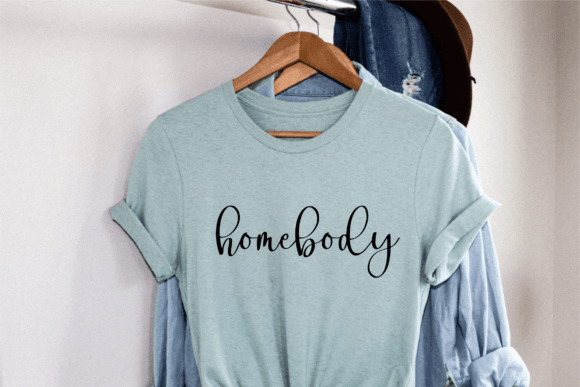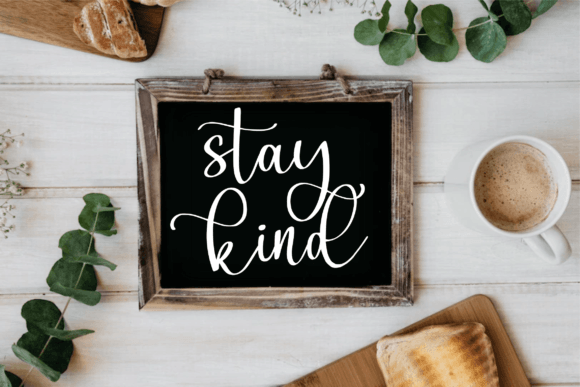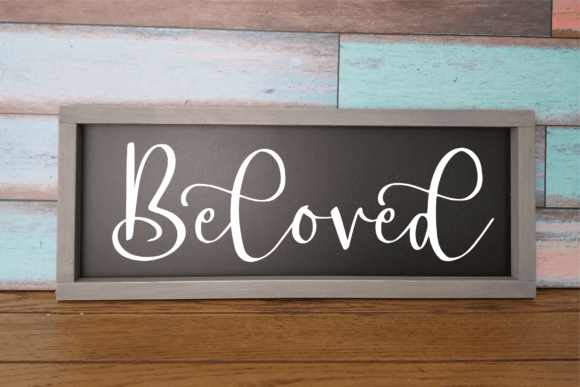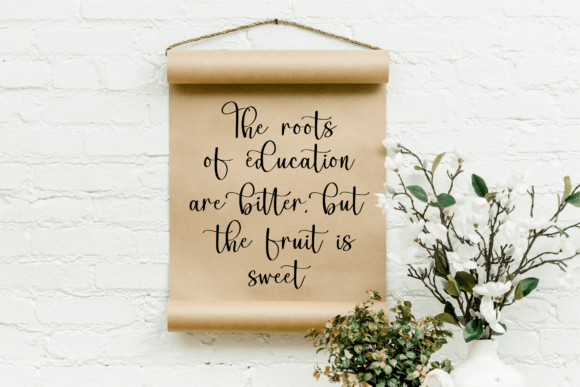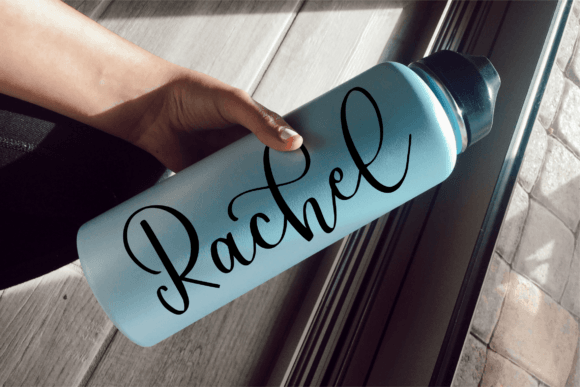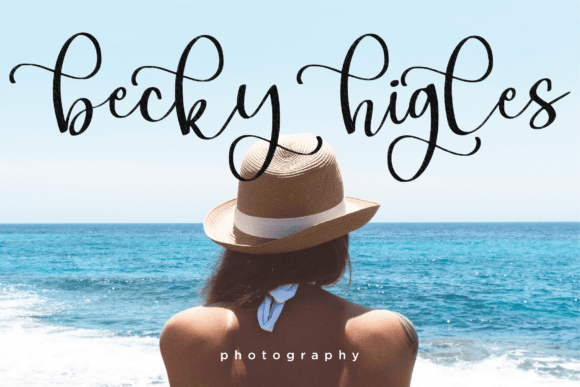
Discover the Quirky Charm of Abigailside Font
Enter the Abigailside Font, a quirky handwritten font that’s perfect for adding a personal touch to your designs. Whether you’re working on product packaging, branding projects, or social media graphics, Abigailside Font is sure to bring a smile to your audience’s faces. Its unique charm and character make it a valuable addition to any designer’s toolkit, and we can’t wait to share its story with you.
- Font Family: Abigailside is a script font, ideal for creating elegant and sophisticated designs.
- Character Set: The font includes a wide range of characters, including uppercase and lowercase letters, numbers, and punctuation marks.
- Unique Characteristics: Abigailside Font features a unique, handwritten feel with subtle flair and connection, making it perfect for invitations, quotes, and other creative projects.
Overall, I think Abigailside is a great font choice for those looking for a unique, handwritten feel. ✨ The font’s imperfections and irregularities give it a personal touch that can add character to any design. The script-like connections between letters are particularly nice, making it perfect for titles, quotes, and other text that needs a bit of flair.
However, there are some limitations to consider. ⚠️ For one, Abigailside may not be the best choice for body text, as the irregularities can make it difficult to read. Additionally, the font may not be suitable for projects that require a high level of consistency, as the letterforms can vary slightly from one instance to another.
- ✨ Unique, handwritten feel that adds character to designs
- ✨ Script-like connections between letters
- ⚠️ May not be suitable for body text due to irregularities
- ⚠️ May not be suitable for projects requiring high consistency
Abigailside Font is a beautiful, elegant script font perfect for weddings, invitations, and other special occasions. To get the most out of it, try using it in combination with bold fonts or with a subtle gradient effect. You can also experiment with different font sizes and colors to create a unique look.
Abigailside Font is commonly used for:
- Special occasion invitations
- Wedding and event graphics